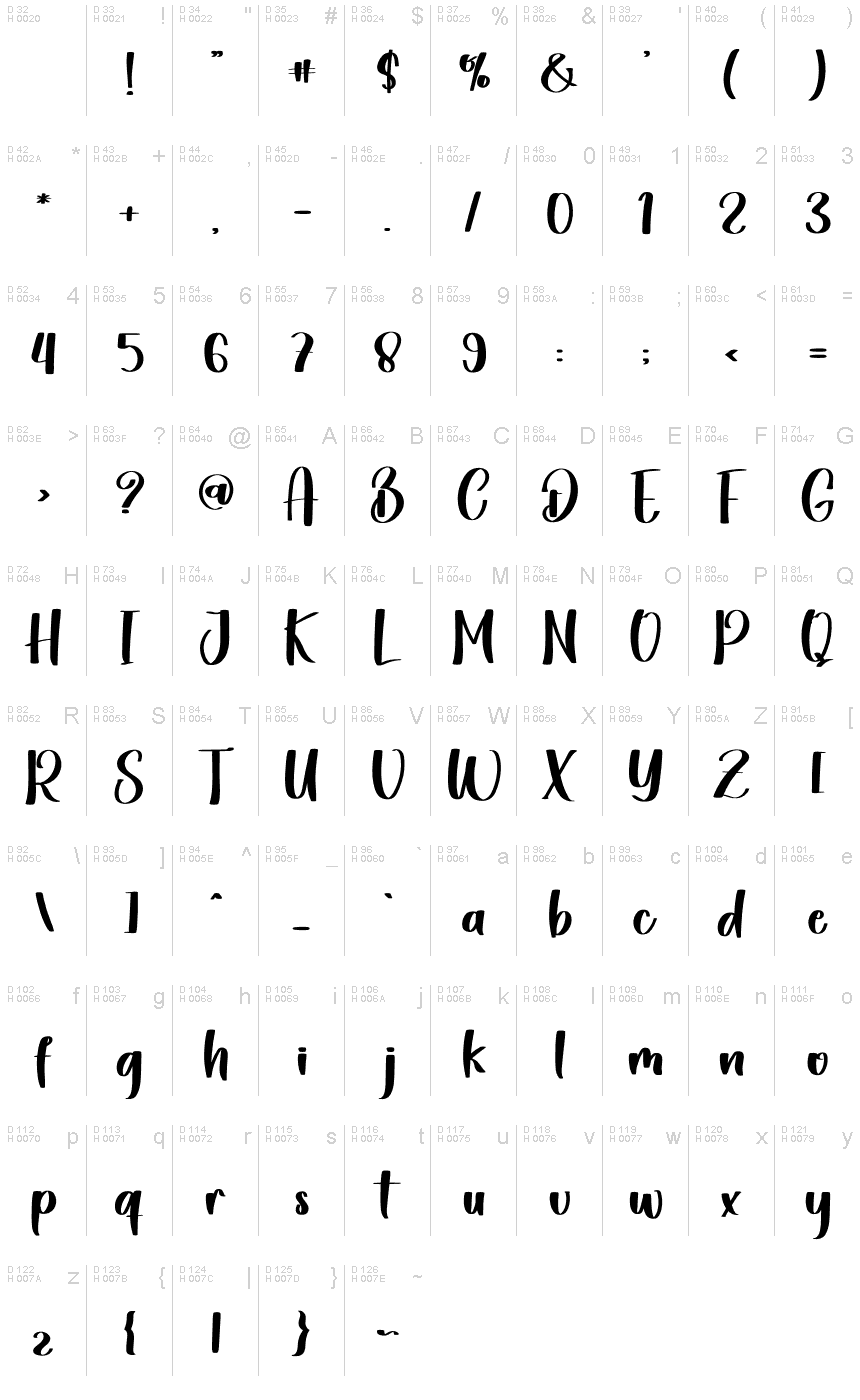
Alqulista
Alqulista, a captivating handwritten font designed by FreshtypeINK, adds a touch of elegance and personality to any project. With its fluid strokes and charming imperfections, this font is perfect for creating eye-catching logos and branding materials. Its versatility makes it suitable for various projects such as wedding invitations, greeting cards, and social media posts. Alqulista's playful yet sophisticated style effortlessly captures attention and evokes a sense of whimsy. Enhance your designs with this font that exudes creativity and charm, leaving a lasting impression on your audience.